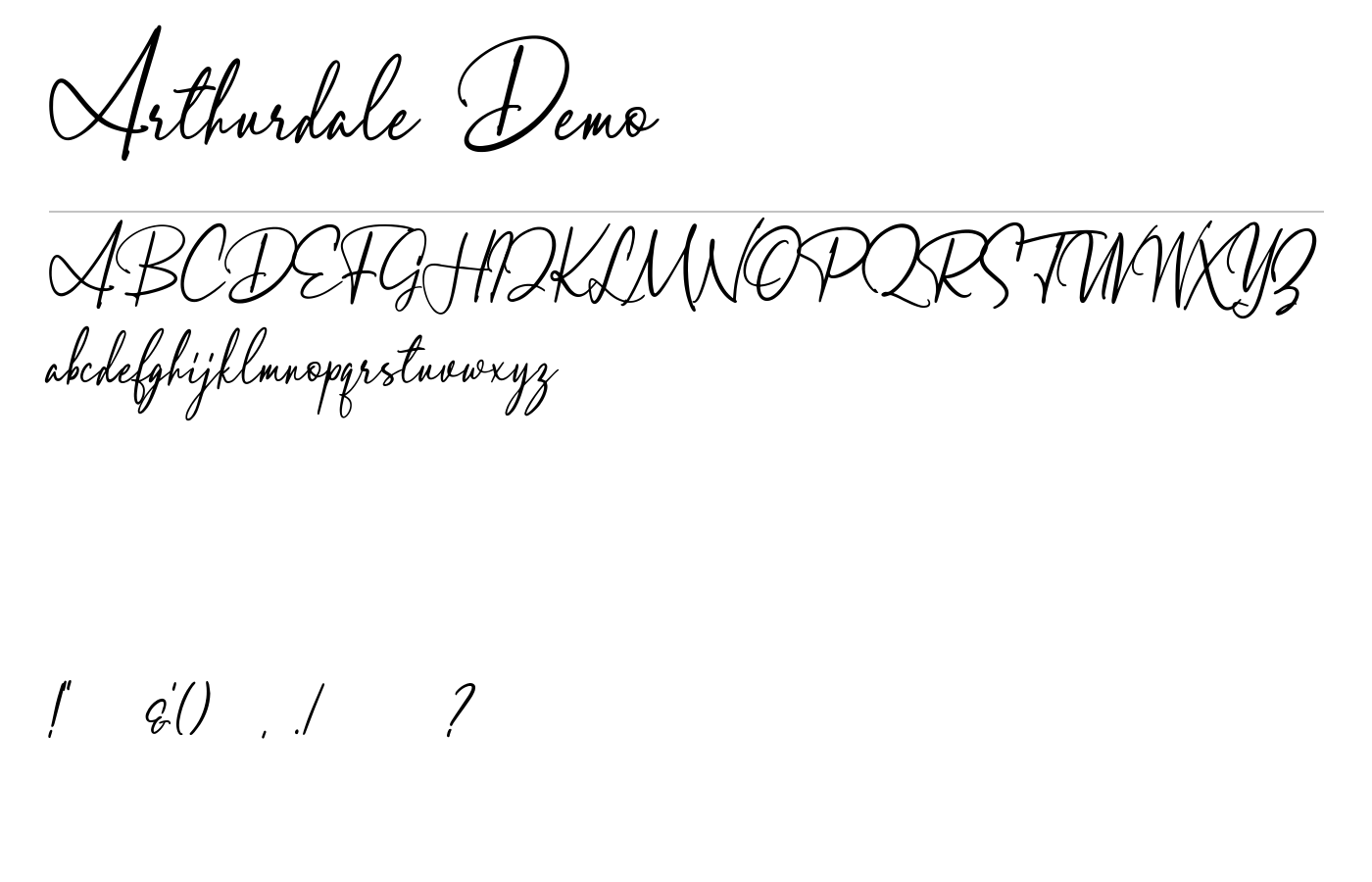
Arthurdale Demo is a graceful script font with elegant, flowing strokes that mimic natural handwriting. Its thin, slightly irregular lines and high contrast give it a refined yet personal touch, making it ideal for invitations, branding, and any project that seeks a stylish, intimate feel. This font works best in decorative or headline settings where a sophisticated and artistic impression is desired.
Arthurdale Demo Font
About Arthurdale Demo Font
| Font family | Arthurdale Demo Font |
| Designer | Edi Gunawan |